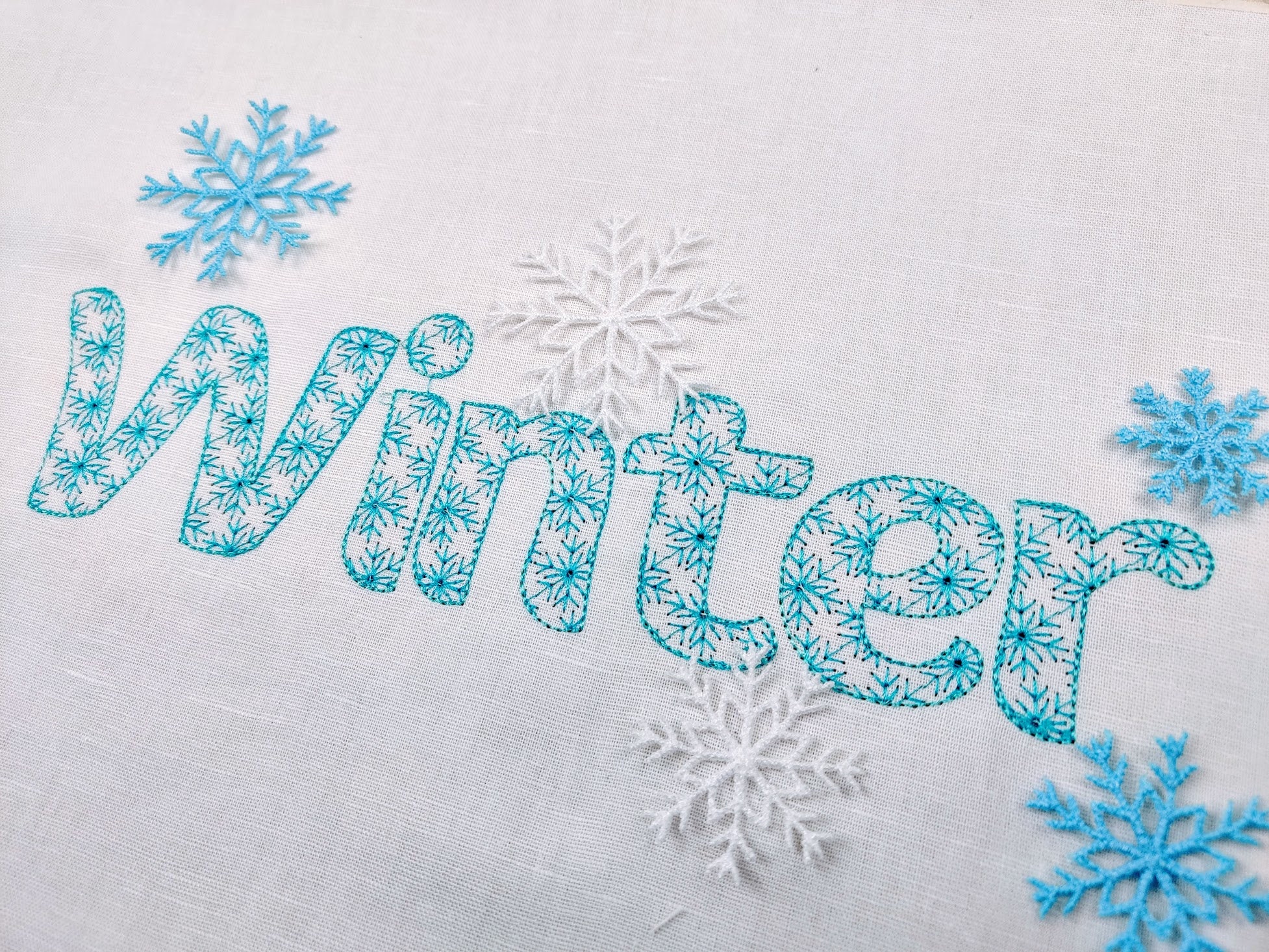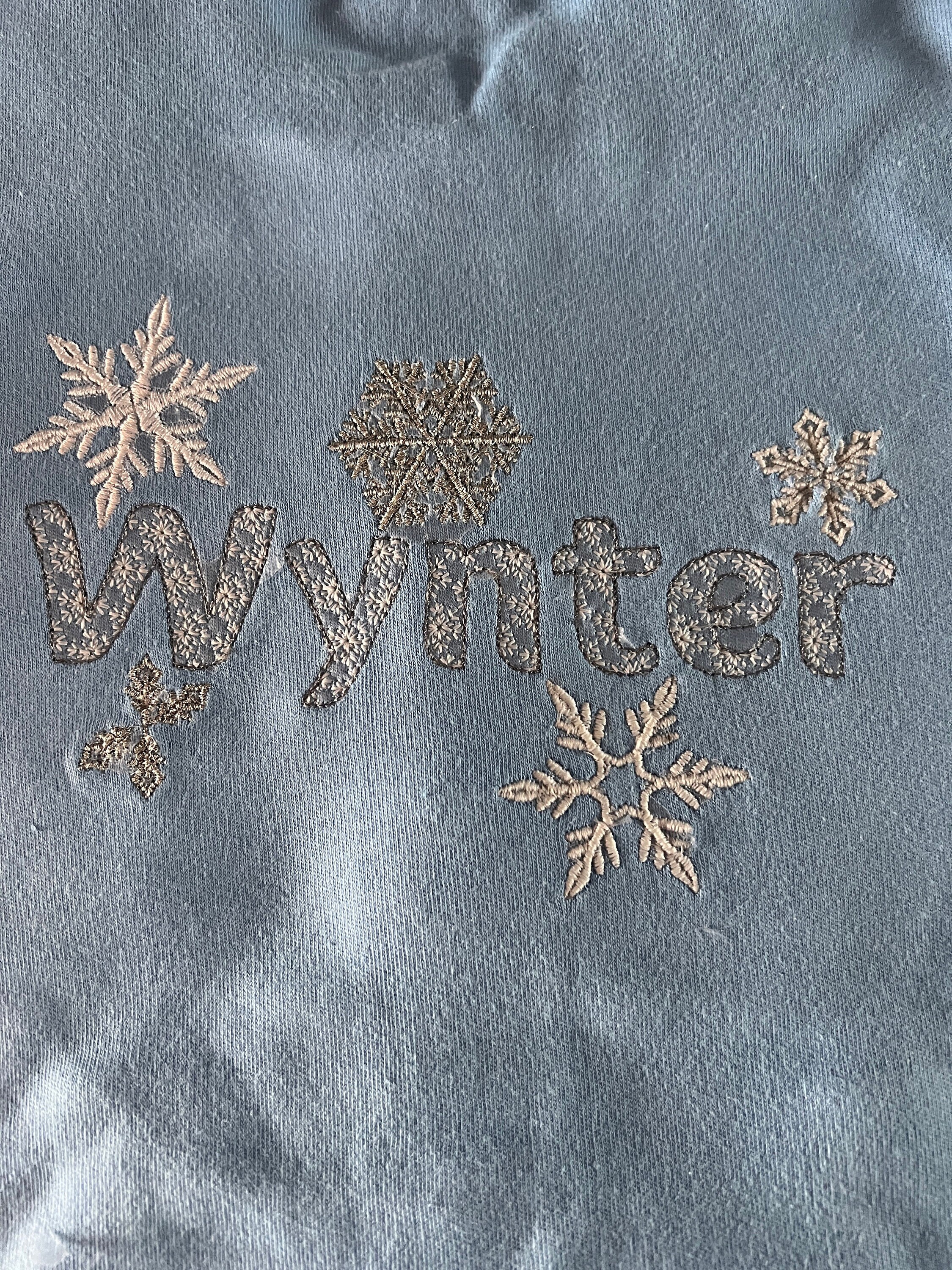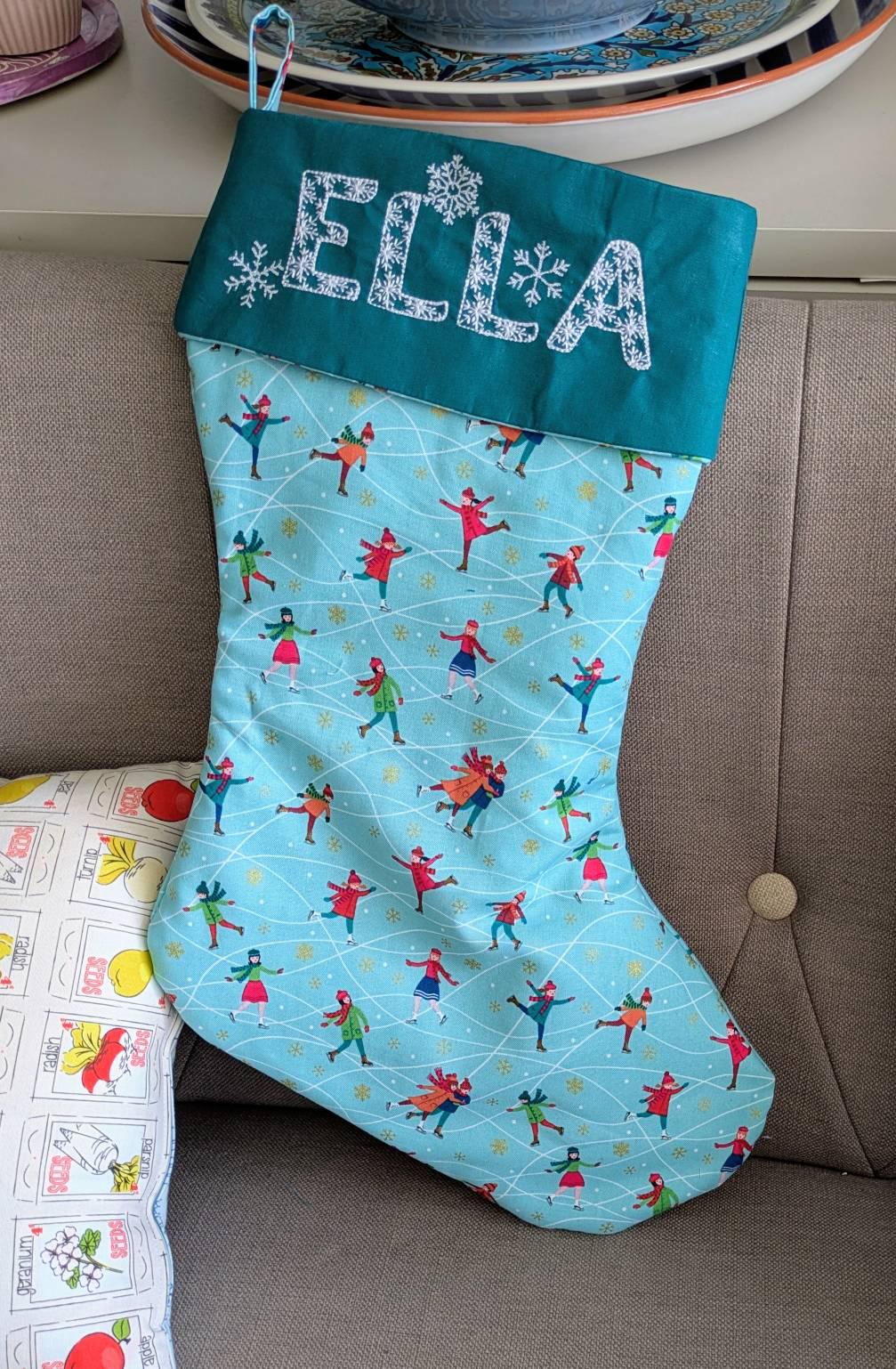
Snowflake Font light sketch outline Christmas frozen winter alphabet machine embroidery designs assorted sizes 1.5, 2, 3, 3.5in, included BX
This is a quick stitch design, the letters look like laces, the background fabric looks through. Stunning effect.